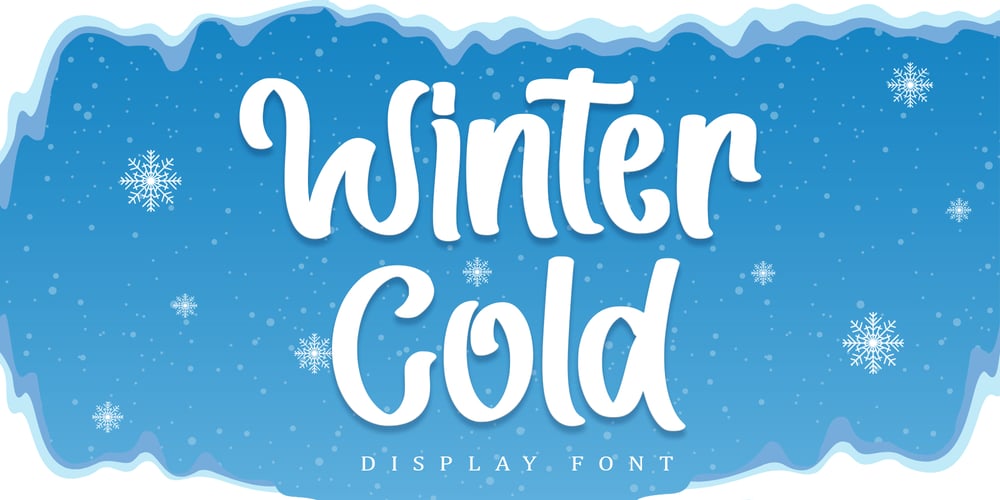
Winter Cold
Winter Cold font
Winter Cold Font Family was designed by Alif Ryan Zulfikar and published by Sakha Design. Winter Cold contains 2 styles and family package options. Winter Cold is a sweet and adorable display font. Whether you’re using it for crafts, digital design, presentations, or making greeting cards, this font has the potential to become your favorite go-to font, no matter the occasion!